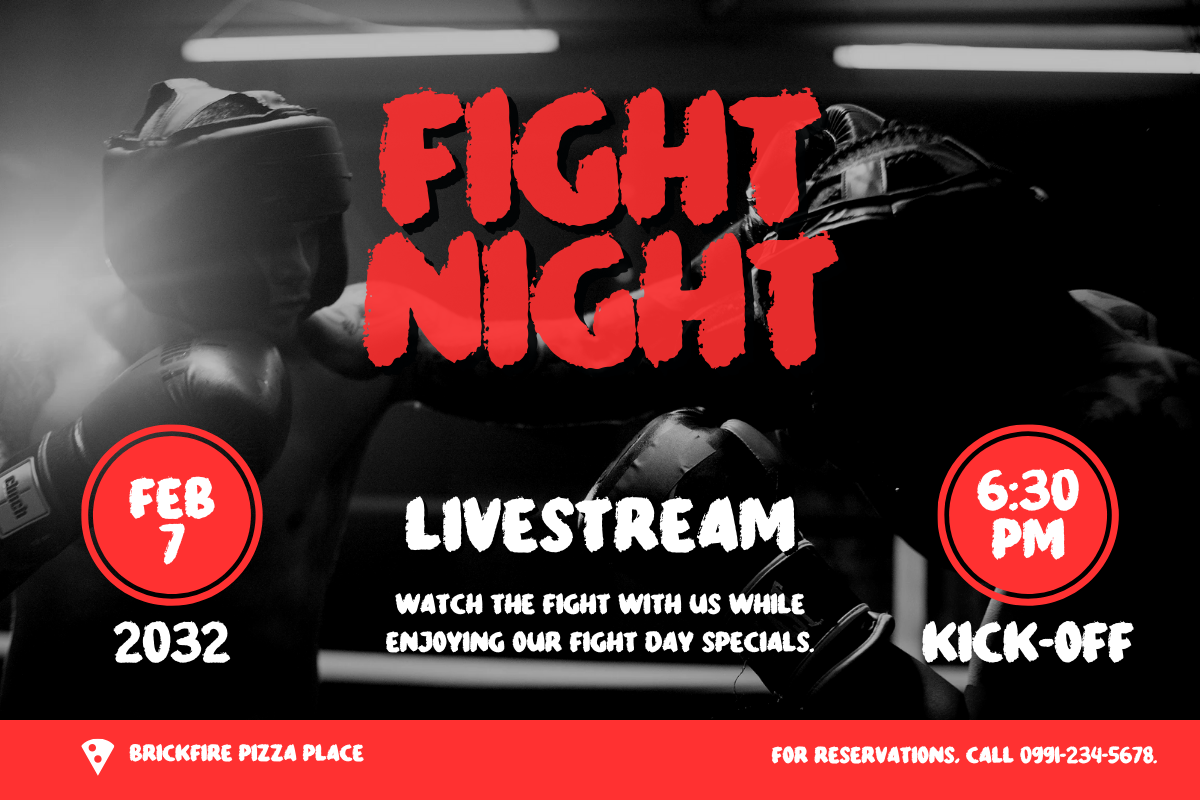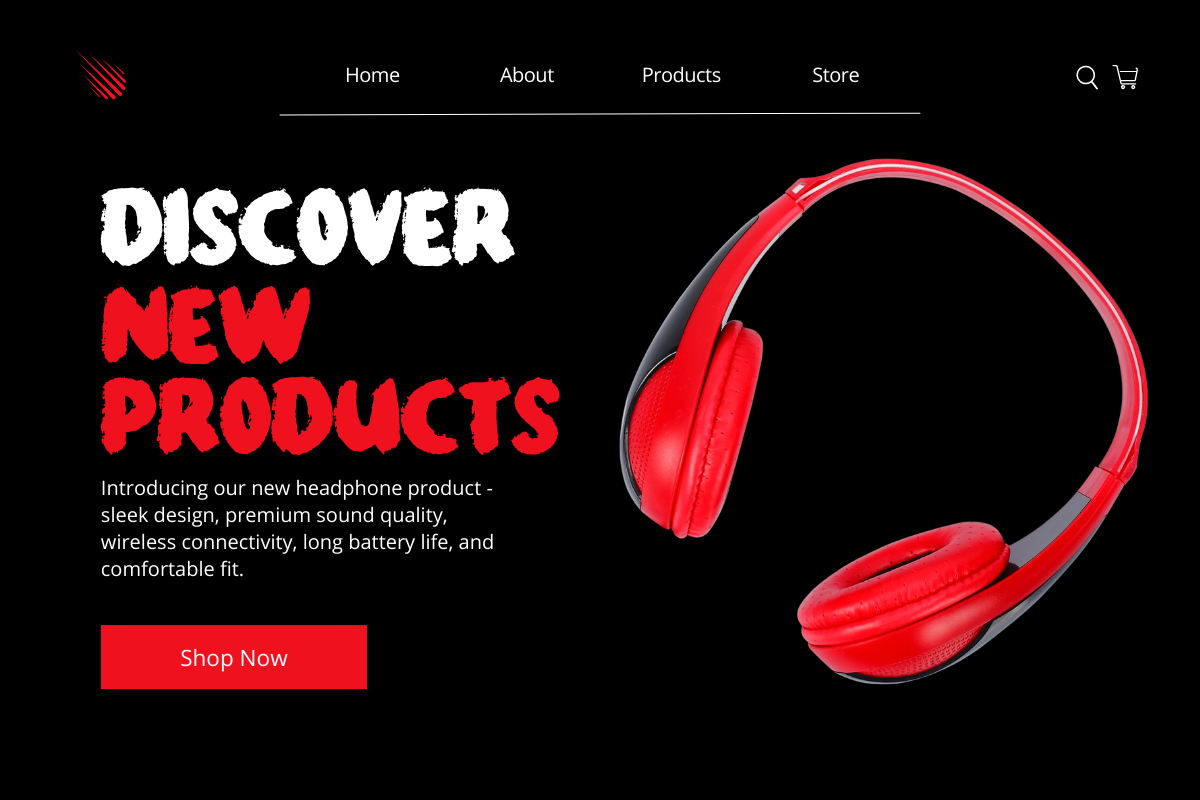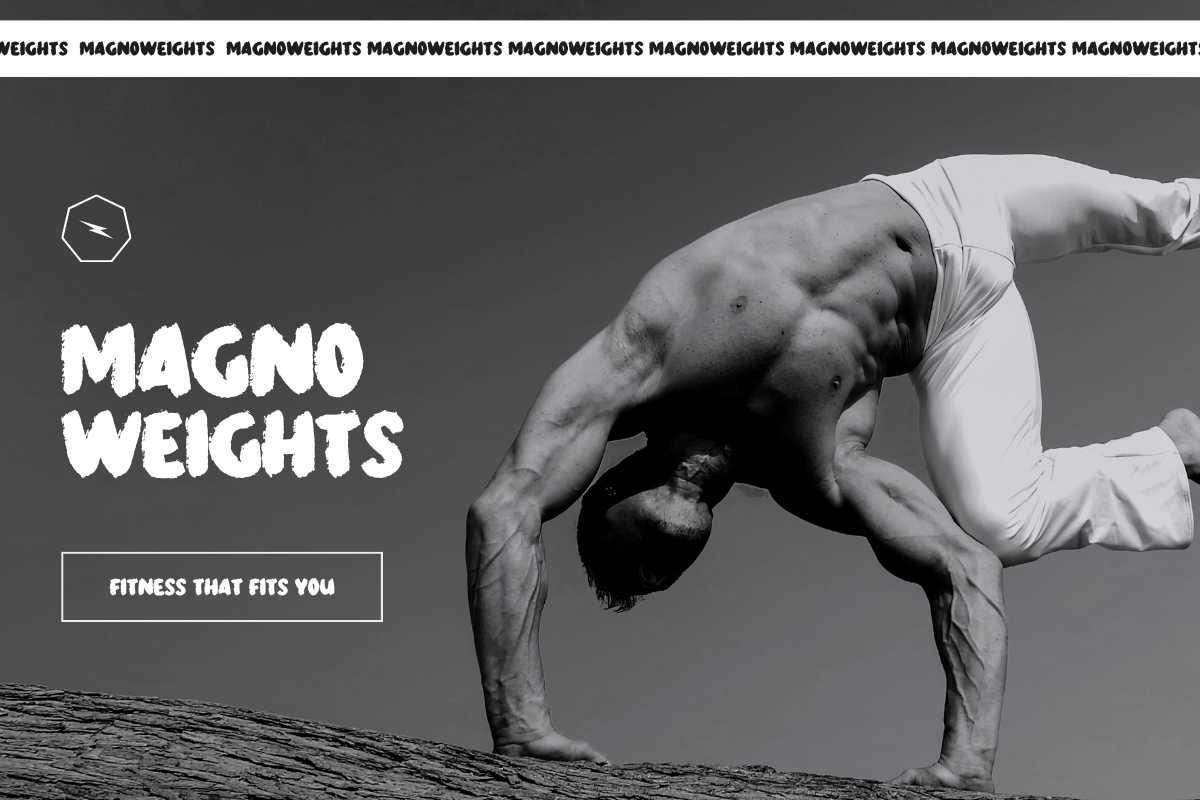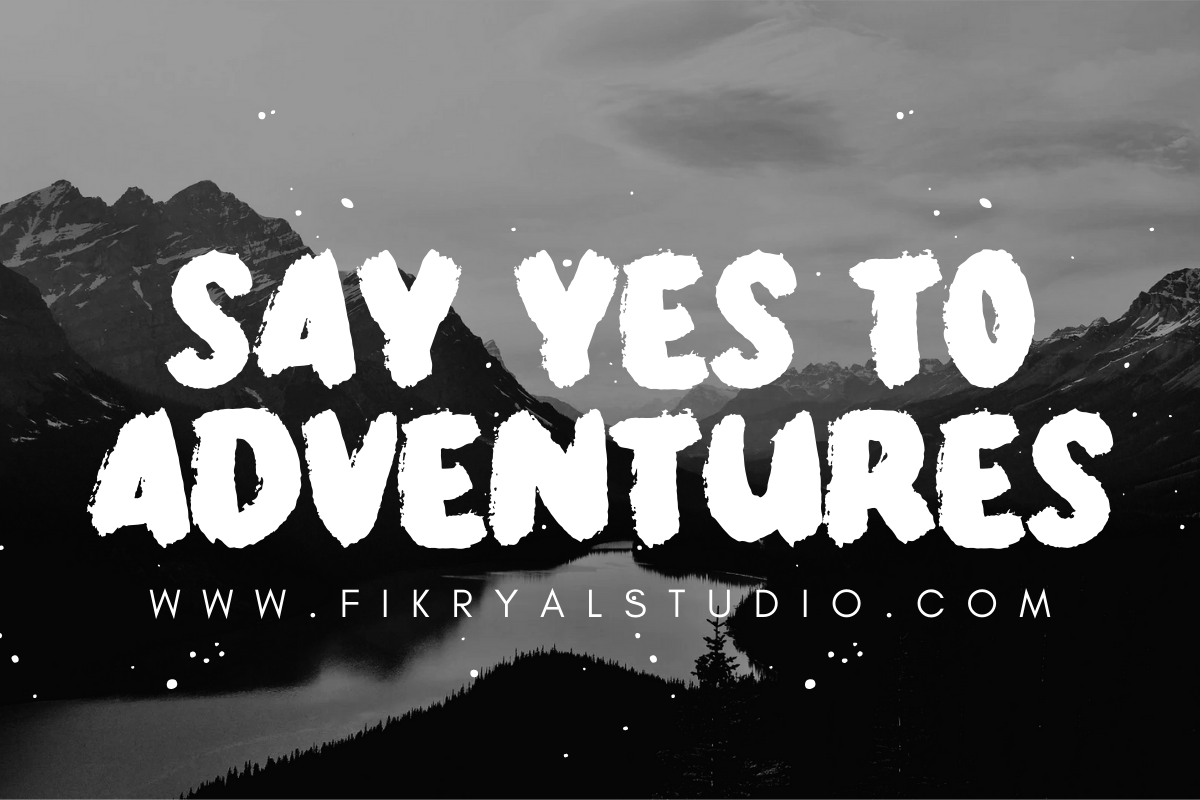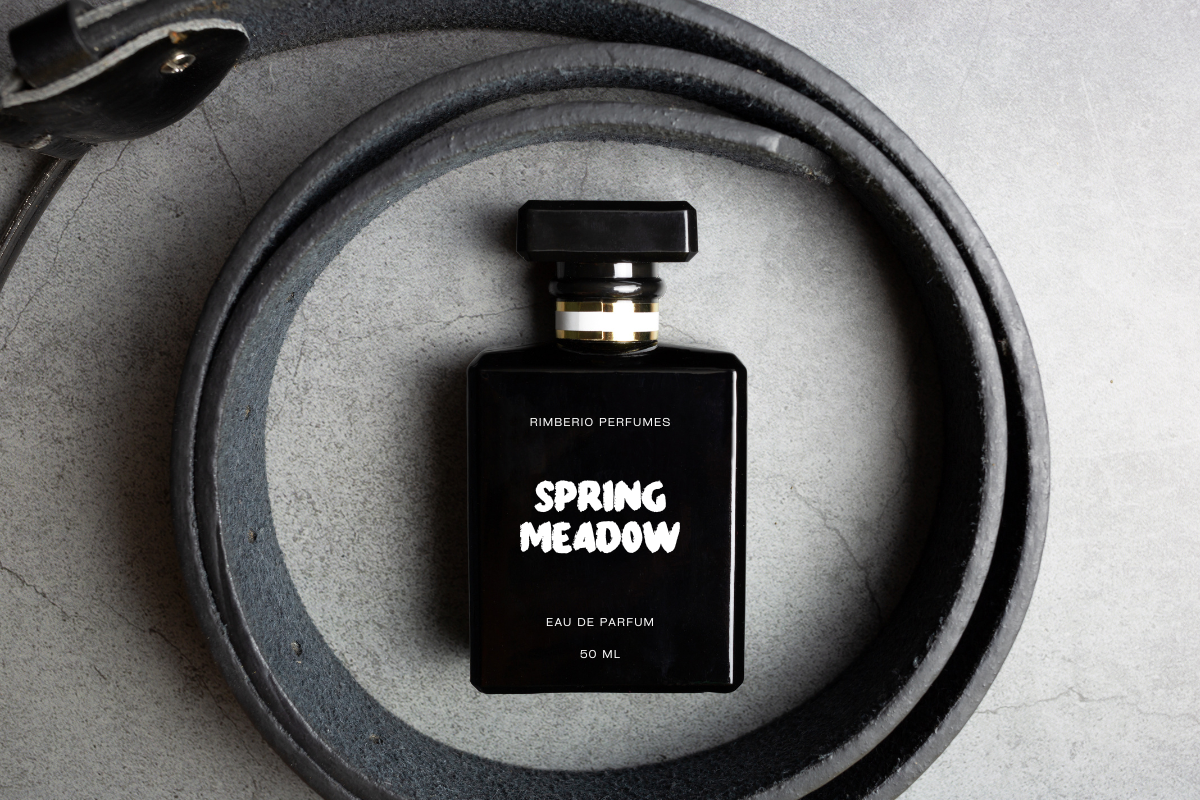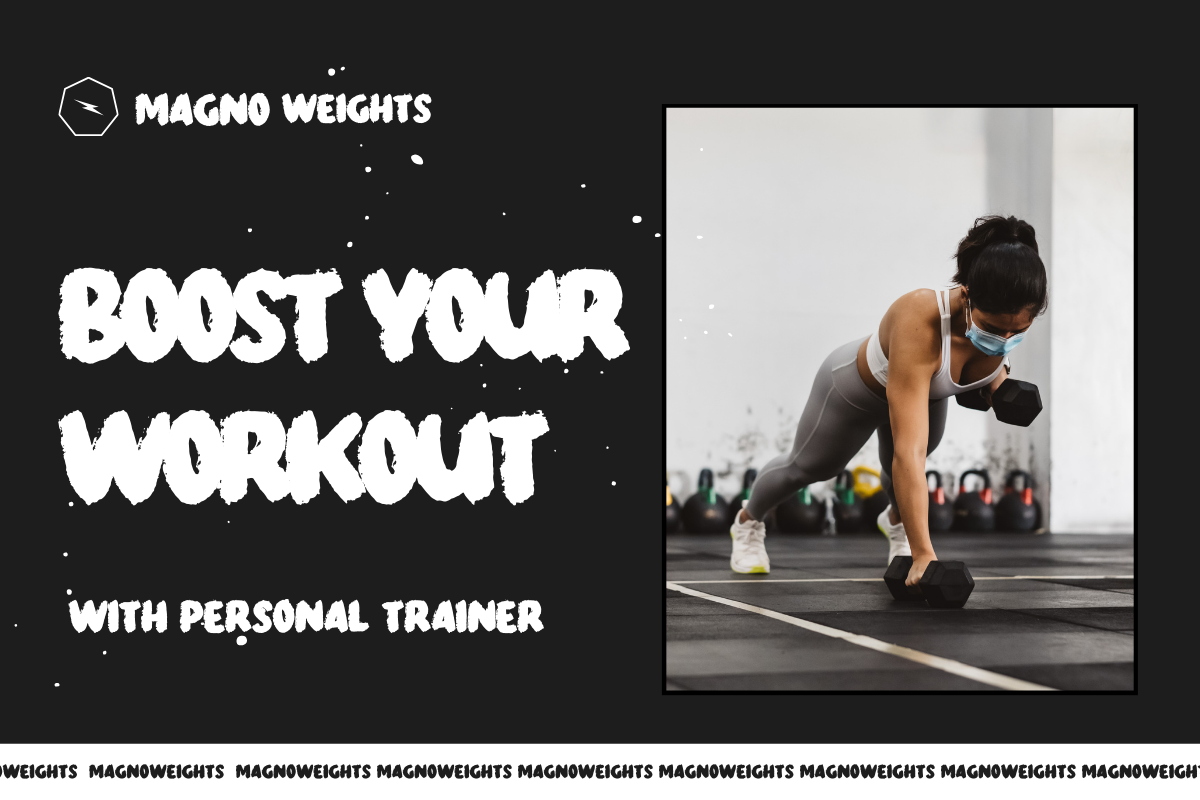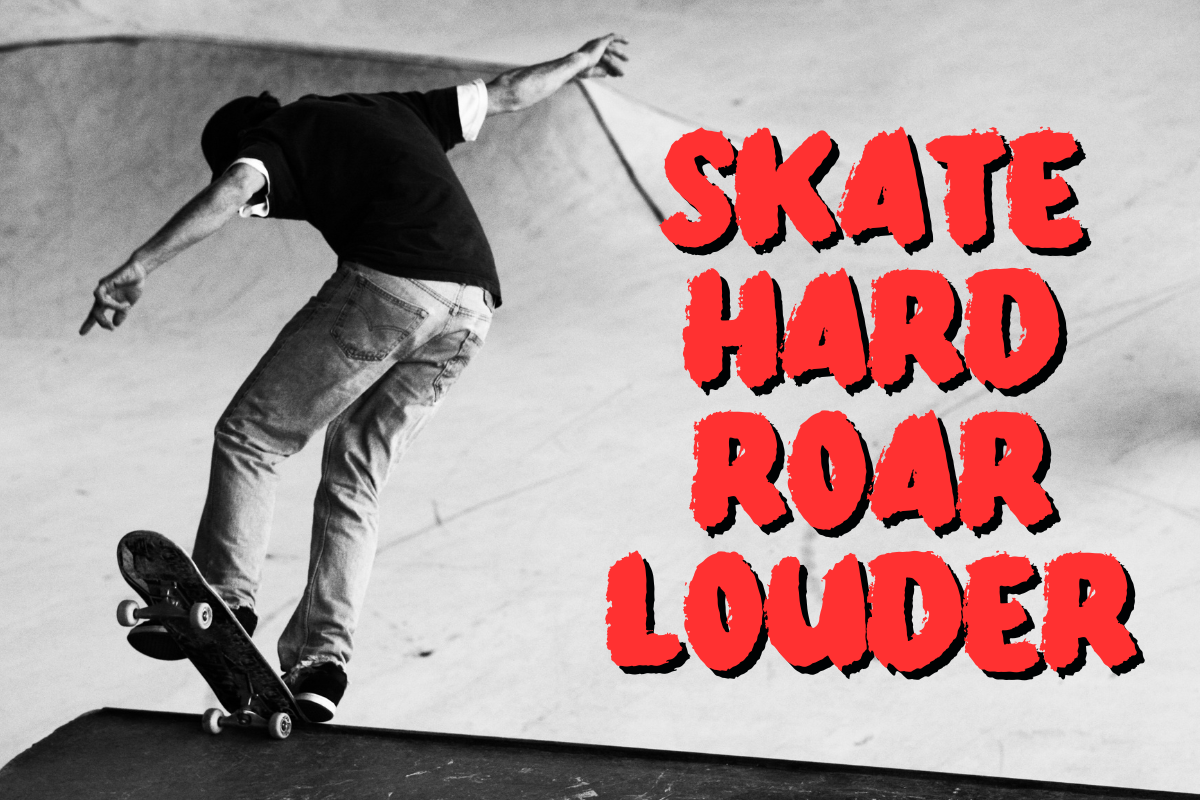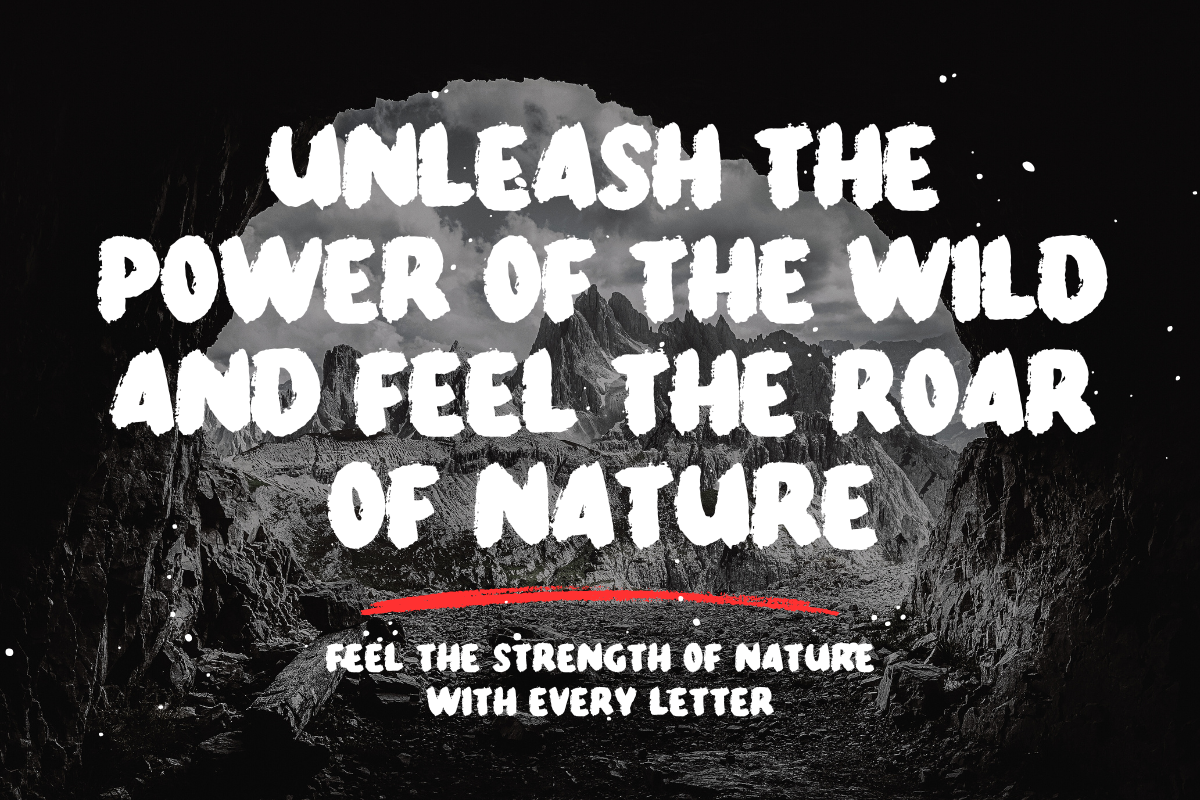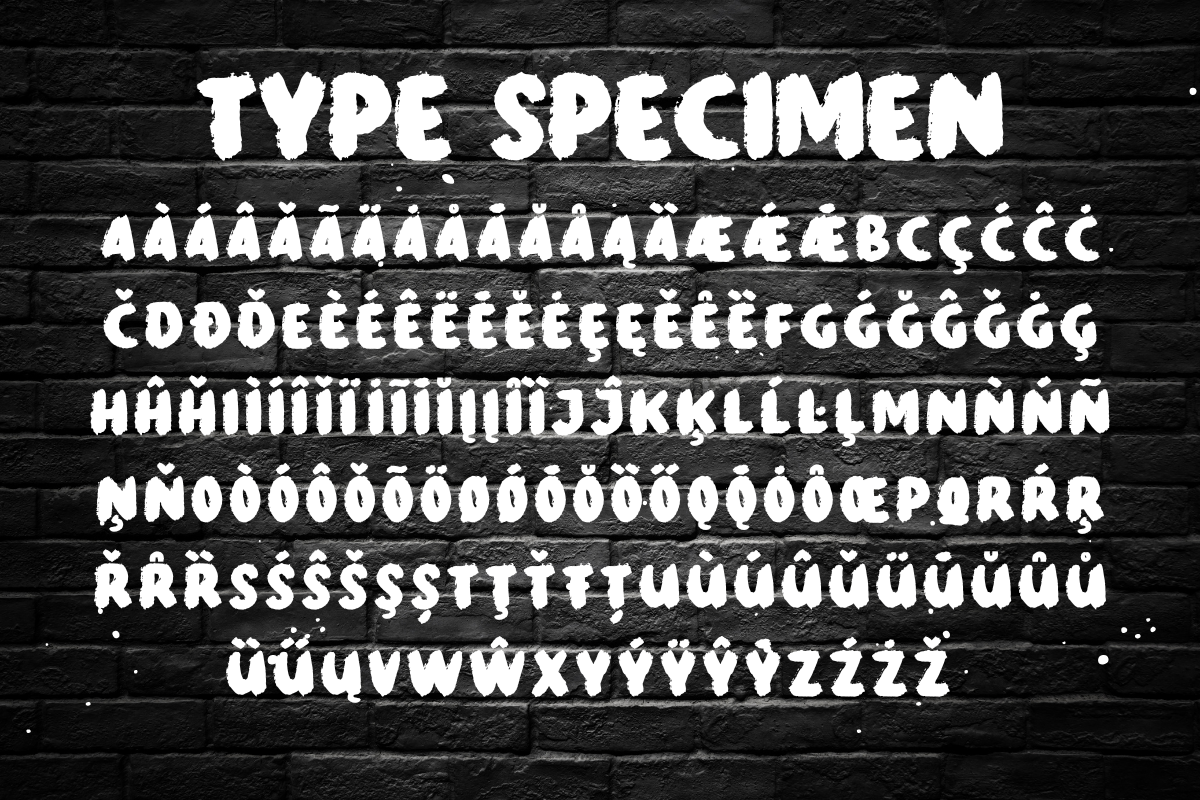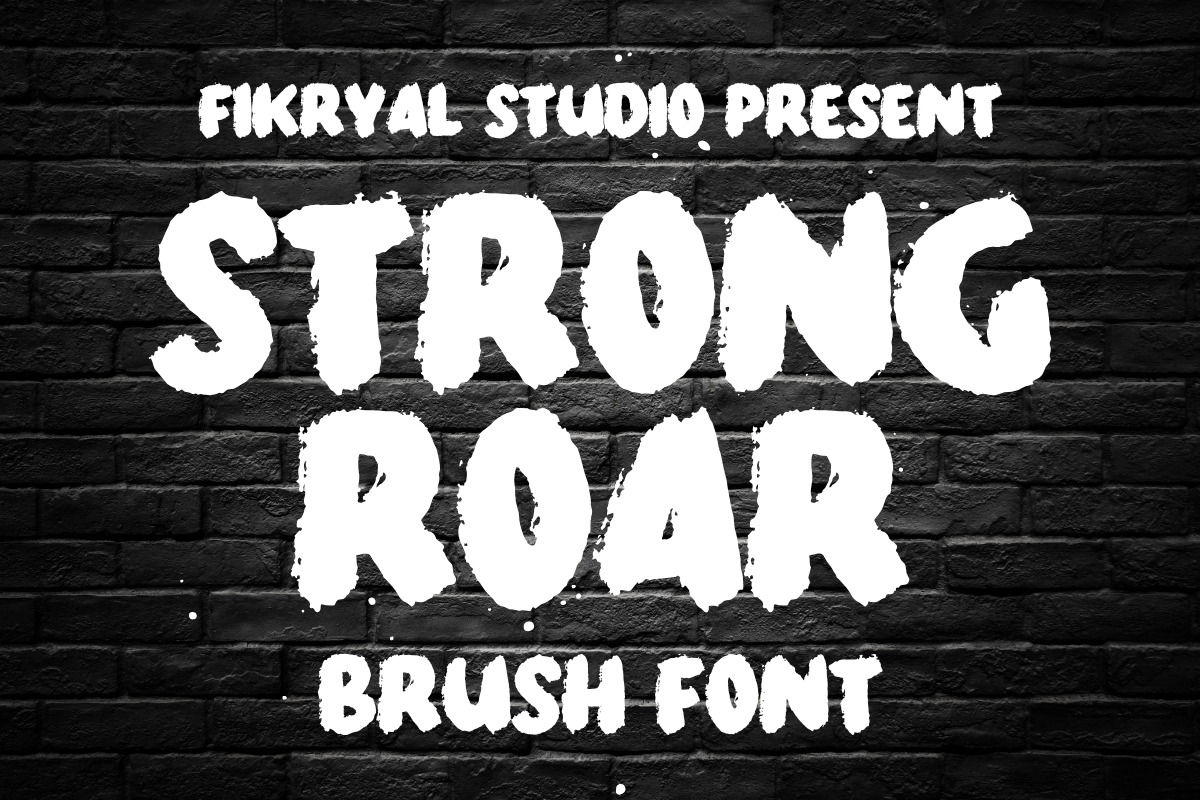
Strong Roar – Brush Font
Strong Roar is a powerful all-caps brush font crafted to deliver a bold and energetic impact. Its thick, textured brush strokes infuse each letter with a rugged, expressive character, making it the perfect choice for designs that demand attention and convey strength.
Ideal for high-impact visuals, Strong Roar shines in applications such as posters, branding for extreme products, apparel design, and any medium where a striking, robust aesthetic is essential. It’s meticulously designed to excel in large-scale headings, album covers, and branding materials, adding an unmistakable edge and authority to every project.